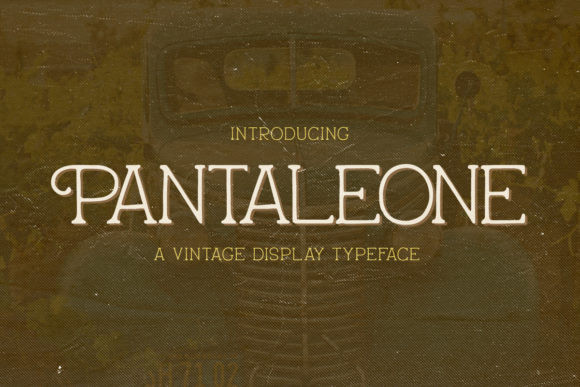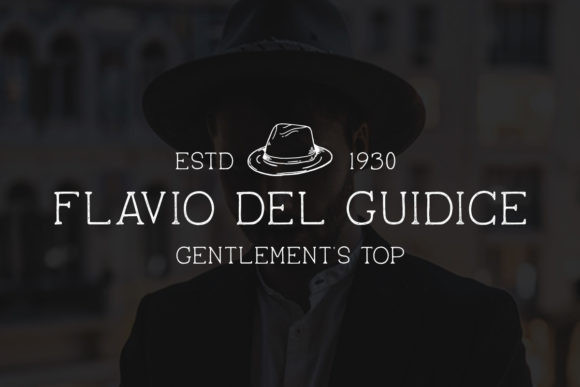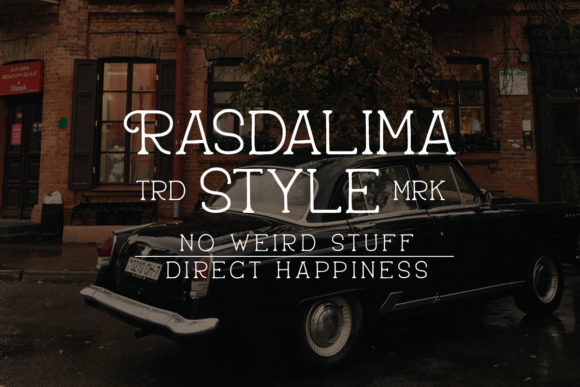
Pantaleone Font
Pantaleone is a simple display font, featuring a vintage vibe. It is suitable for any branding, product packaging, invitation, quote, t-shirt, label, poster, logo that you wish to develop.